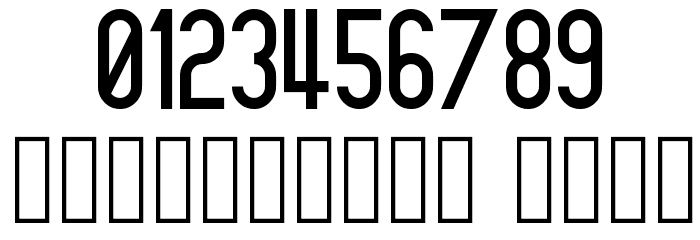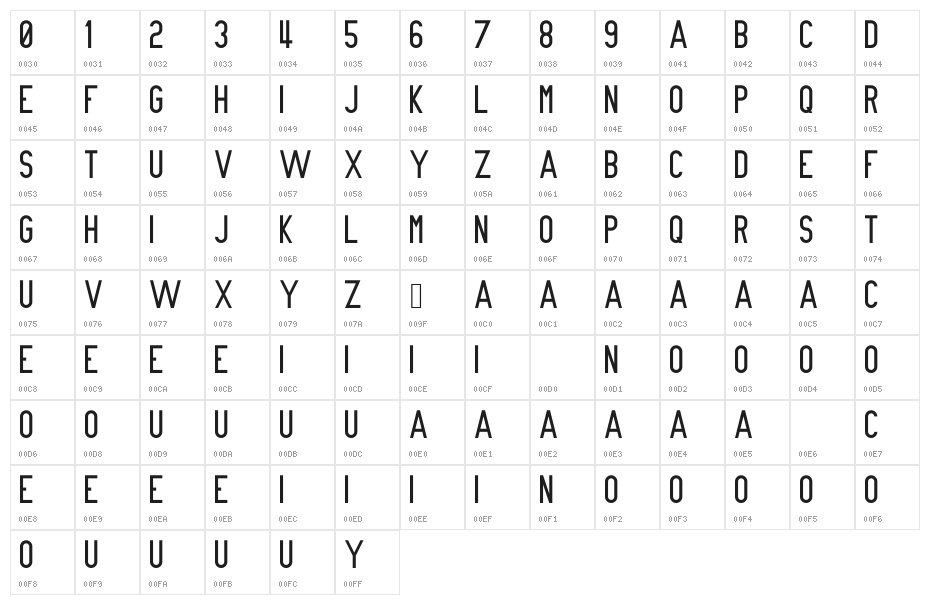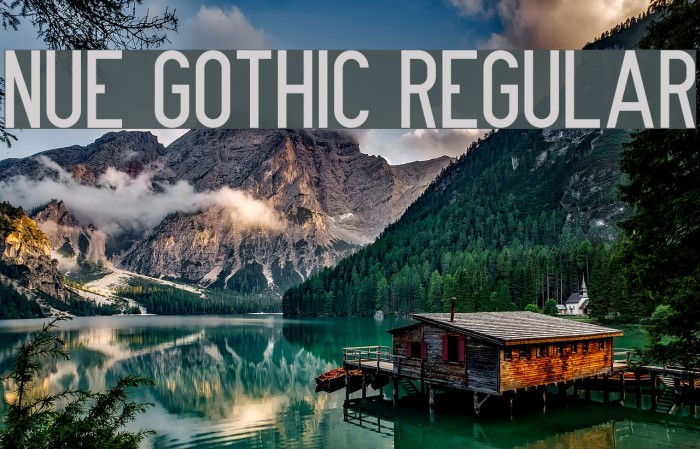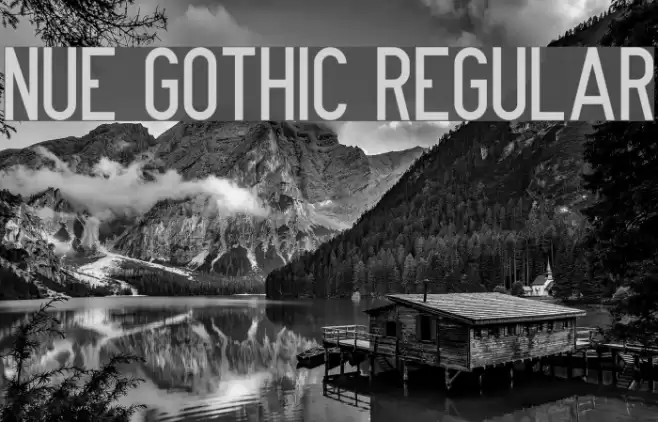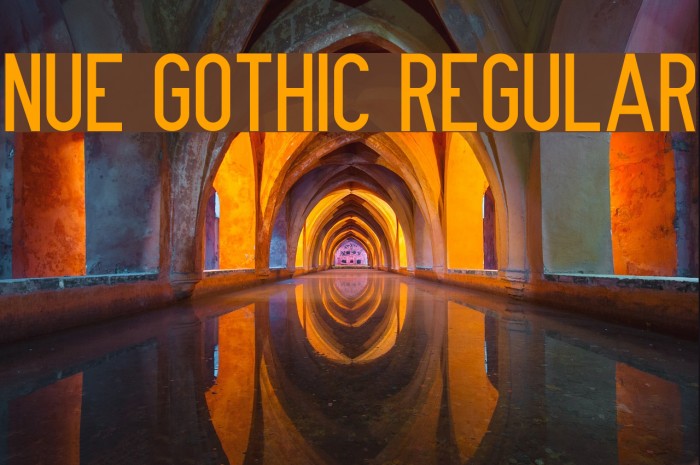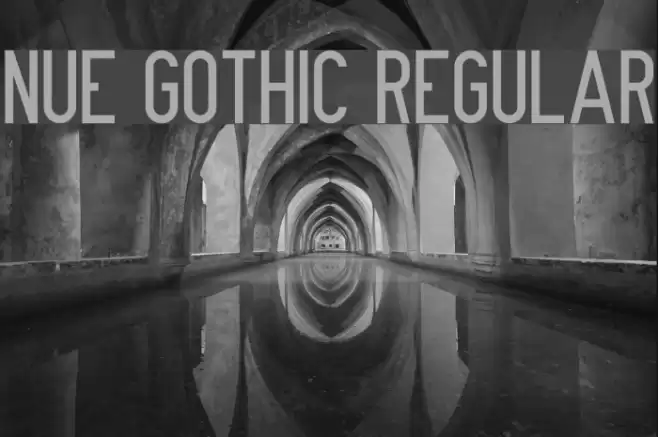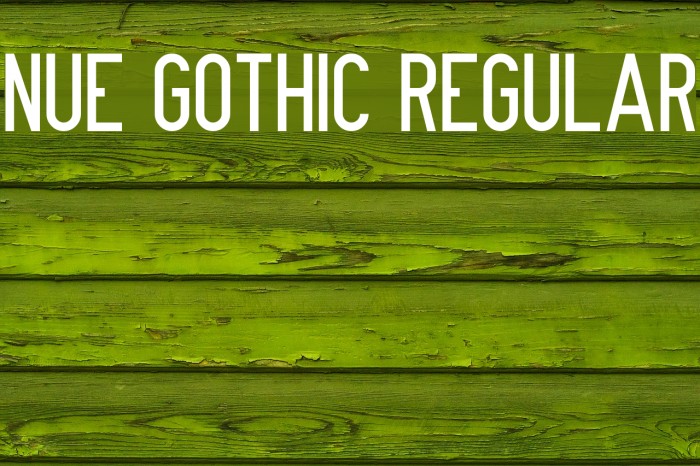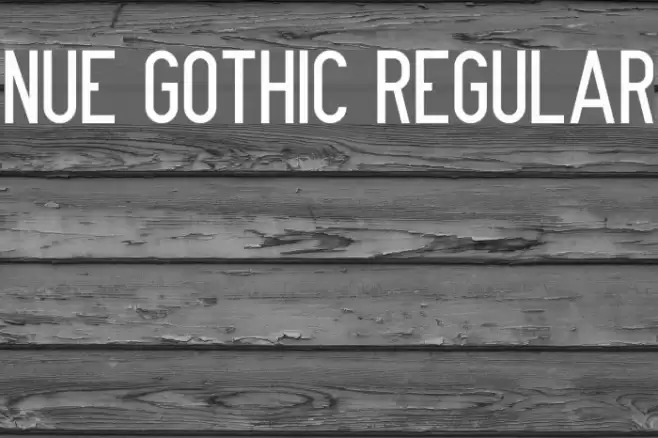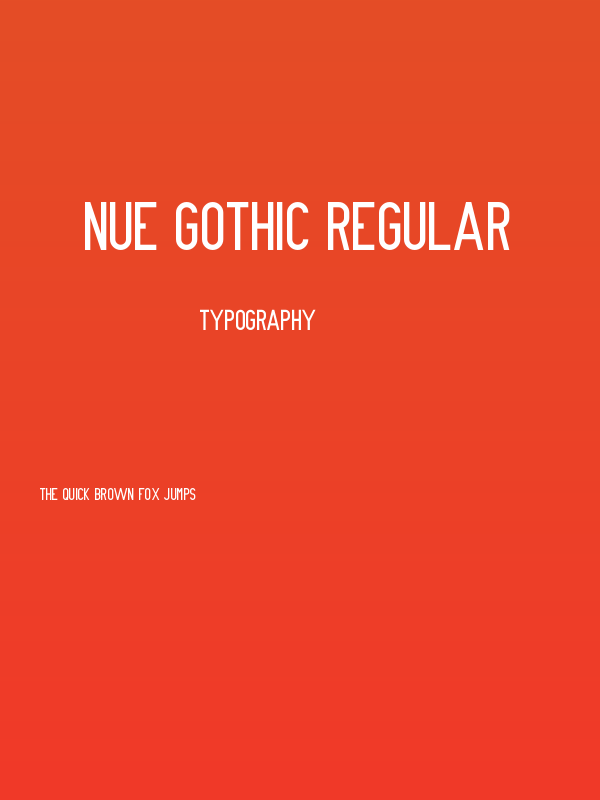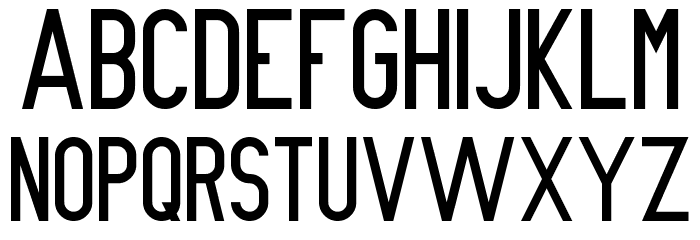
Nue Gothic Regular Font
Nue Gothic Regular Description
This font features a modern, clean design with a geometric structure. The characters are tall and narrow, giving it a condensed appearance. The strokes are consistent in width, providing a uniform look across all characters. The uppercase and lowercase letters maintain a similar height, contributing to its sleek and streamlined aesthetic. The numerals are distinct and align well with the overall style, while the special characters are designed to complement the alphabetic characters seamlessly.
| Proposed Projects | Ideal for branding, advertising, and editorial design projects where a modern and clean look is desired. |